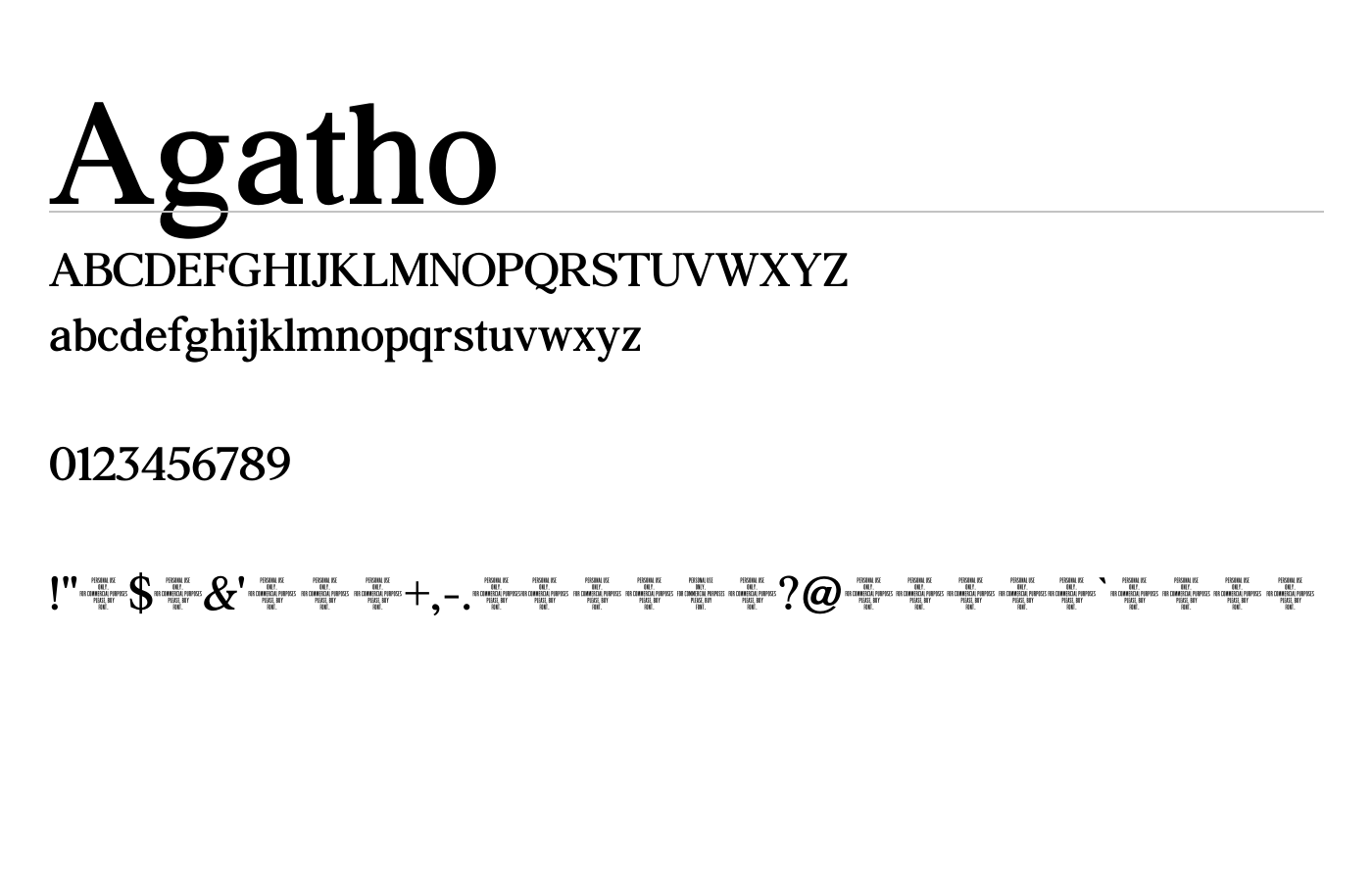
Agatho is a classic serif font with a refined and elegant appearance, featuring medium contrast between thick and thin strokes and delicate, bracketed serifs. Its balanced proportions and clear, legible letterforms make it ideal for sophisticated editorial design, branding, and headlines where a timeless, professional tone is desired. This font works well in contexts that require a sense of tradition and grace, such as luxury packaging, magazines, and formal communications.
Agatho Font
About Agatho Font
| Designer | Andrii Shevchyk |